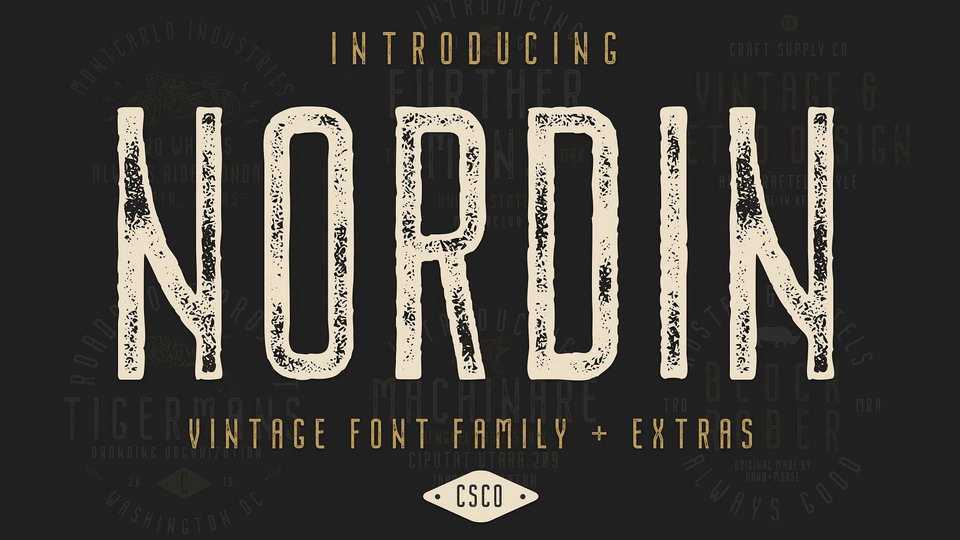
Download Nordin typeface, a condensed vintage display font family based on the compact solid font, by combining a variety of styles. Nordin perfectly fits for making logo and badges, greeting card or a package design, or even a brand identity.